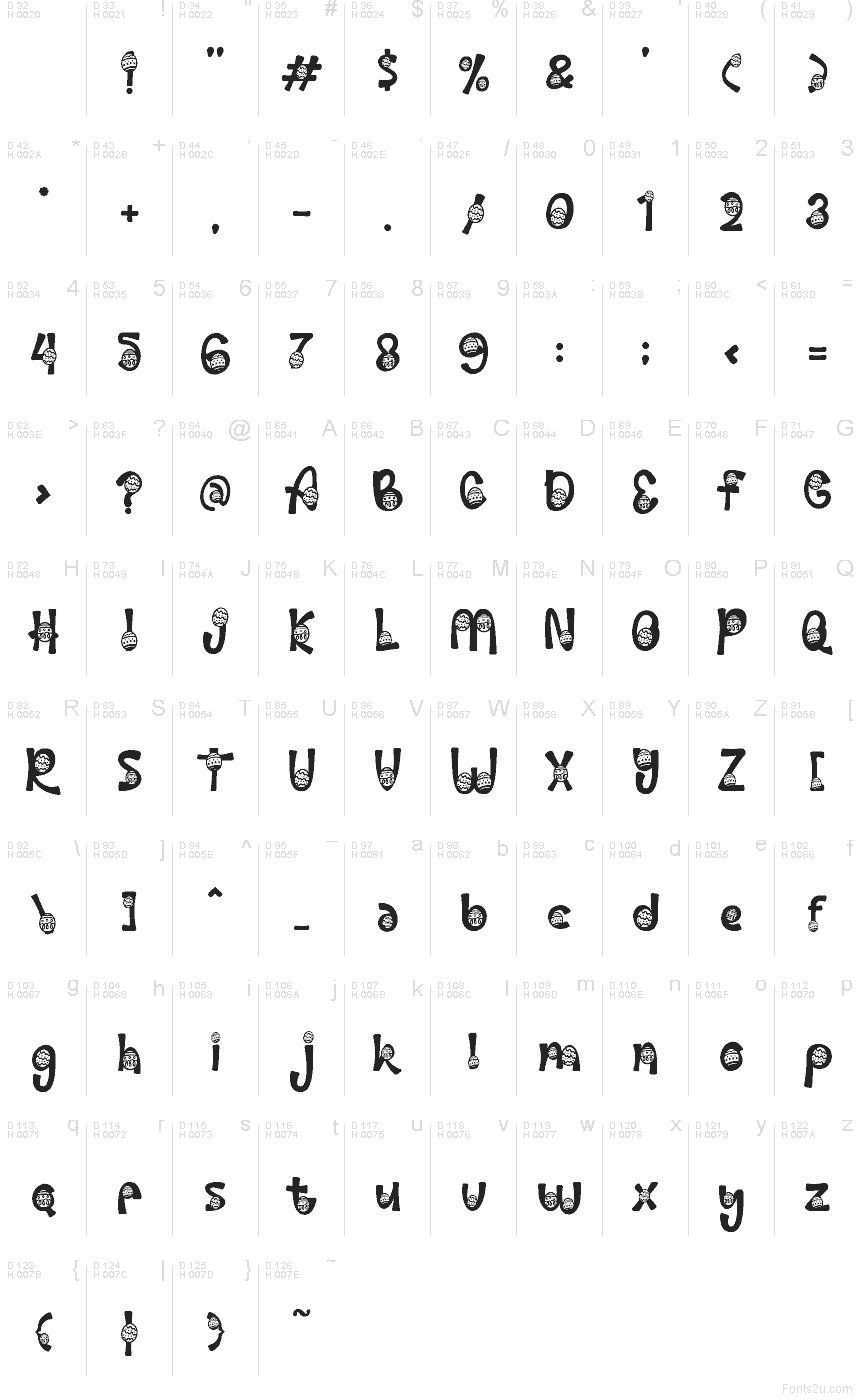
Palm Sunday Egg
Palm Sunday Egg font by Putracetol Studio is a free Easter decorative font with rounded, hand-drawn letterforms and small egg ornaments tucked into the shapes. The letters carry a soft, uneven rhythm, and the repeating decorated egg details give the whole design a clear holiday craft feel without becoming cluttered.
Palm Sunday Egg works well for Easter cards, event flyers, spring sale banners, party invitations, and seasonal social posts, where the egg motifs can do the decorating for you. It also fits shop signs, label art, and greeting projects that need a festive Easter accent with a handmade touch.